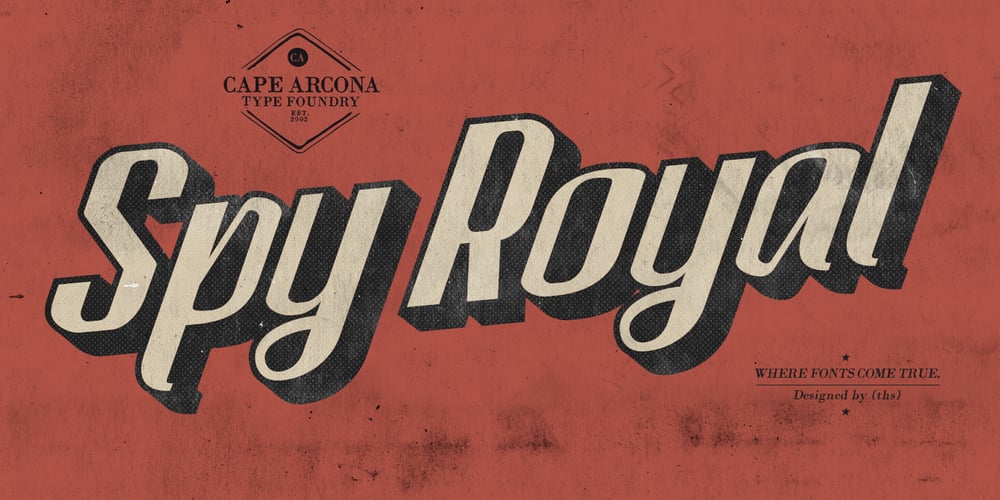
CA Spy Royal Font Family was designed by Thomas Schostok and published by Cape Arcona Type Foundry. CA Spy Royal contains 6 styles and family package options. Spy Royal is a junctionless script typeface and comes in 6 styles. It’s a hybrid between script and so called streamline fonts. The origins are based on an advertising by Japan Airlines, dated around 1954, offering flights to San Francisco, Honolulu and Okinawa in the new DC-6B “Pacific Courier” airplane. Only the letters for the words “JAPAN AIR LINES” were used, so that the creative part was to reimagine a full font out of just a handful of uppercase letters. Originally released in 2004, Spy Royal was now undergoing a major rework and is now republished with additional styles like shadow-lines and 3D-shadow. Its charm is manifold, we think everything related to cars, racing, hot rod, vintage, cocktails, retro, restaurants, gasoline and of course airlines will look great in Spy Royal. Spy Royal includes alternate characters, ligatures and West European diacritics.